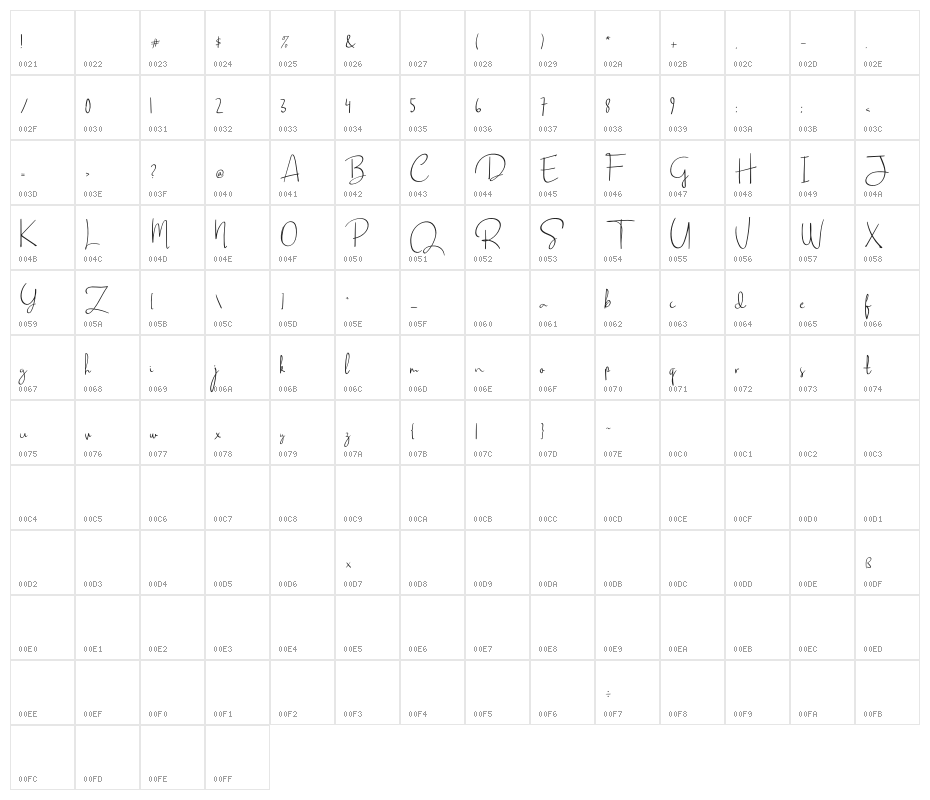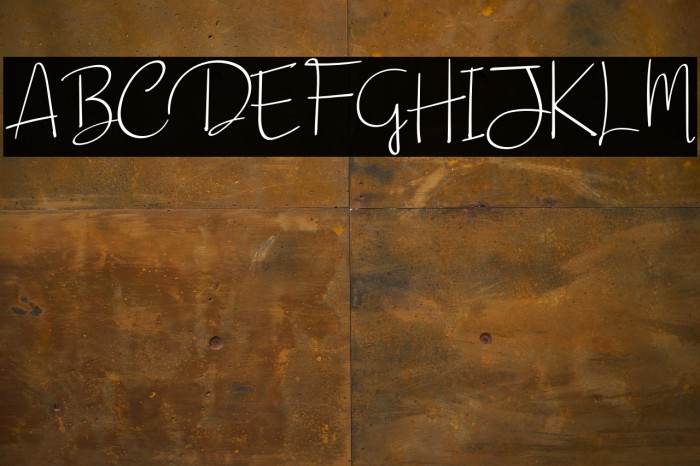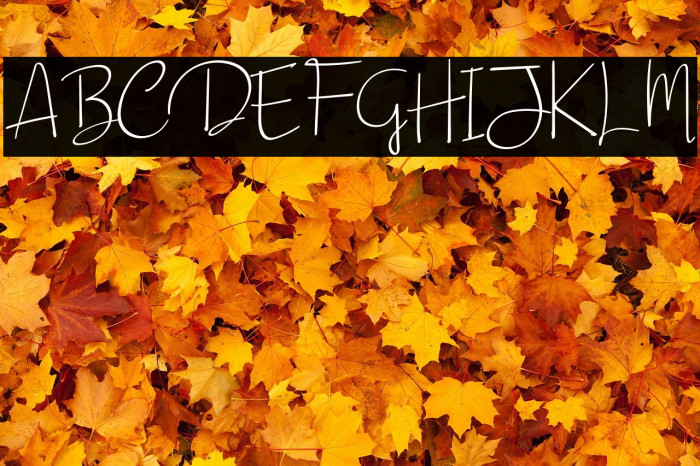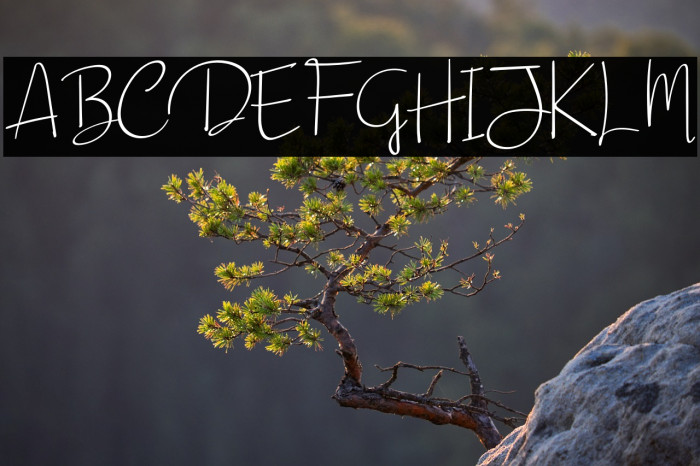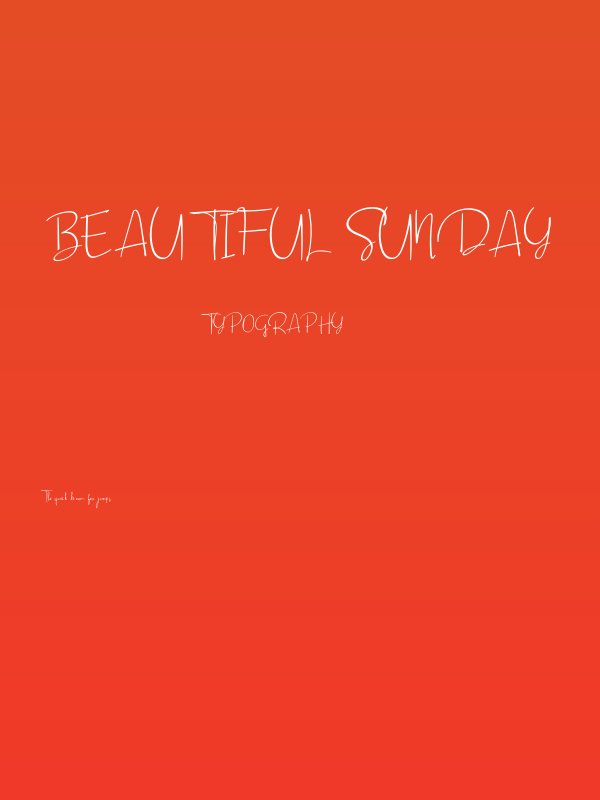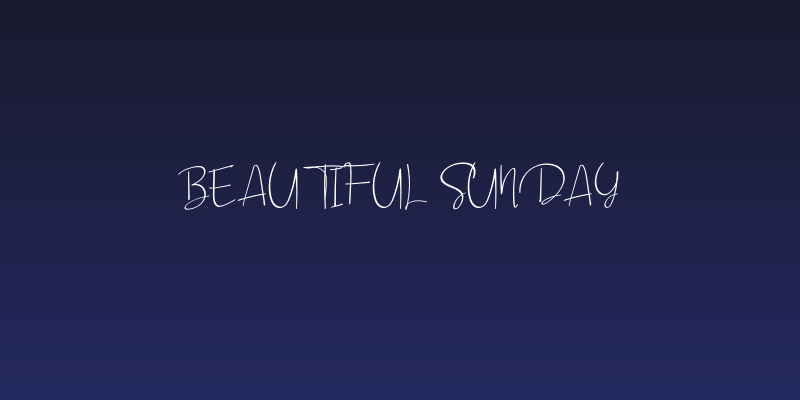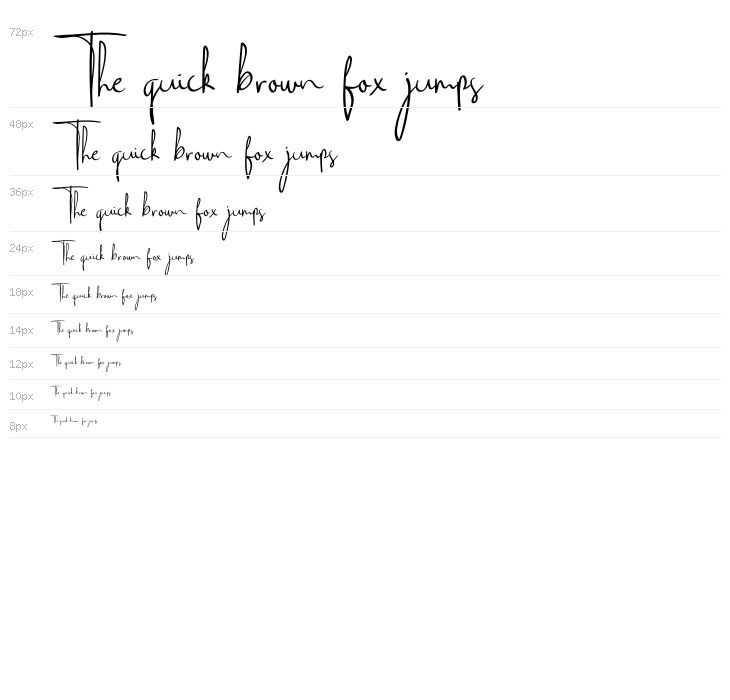
Beautiful Sunday Font
Beautiful Sunday Description
This font exudes a playful and whimsical charm, characterized by its handwritten style that mimics the fluidity of cursive writing. The uppercase letters are tall and slender, with a slight tilt that adds a dynamic feel. The lowercase letters maintain a consistent flow, with loops and curves that enhance its casual elegance. Numbers and special characters follow the same playful aesthetic, making the font versatile for various creative applications. The overall appearance is light and airy, with a sense of movement that captures the eye.
| Proposed Projects | Ideal for greeting cards, invitations, personal branding, and creative projects that require a touch of elegance and playfulness. |